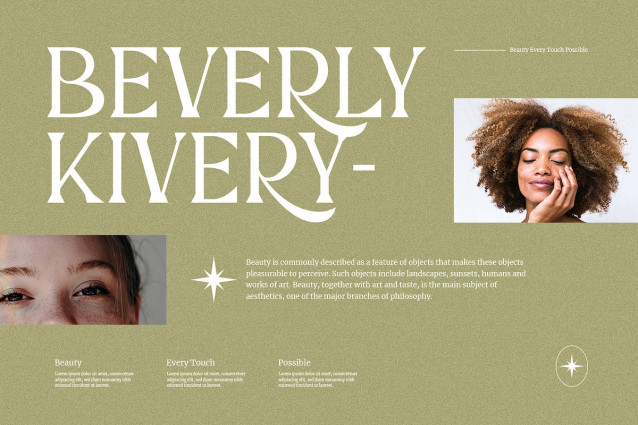
Creators Font
Creators Font is an elegant, authentic serif typeface that combines the elegance of classic typefaces with a contemporary style. This typeface is ideal for luxury branding, headlines, editorial titles, art publications, and any application that requires both aesthetics and artistry.